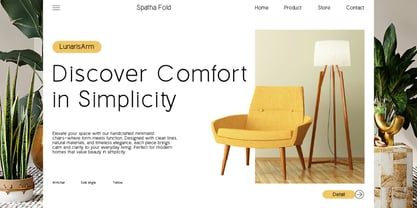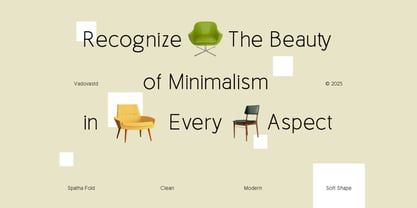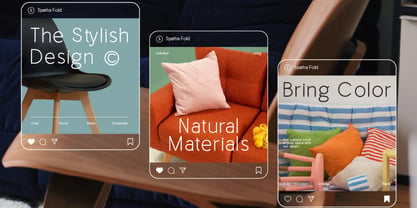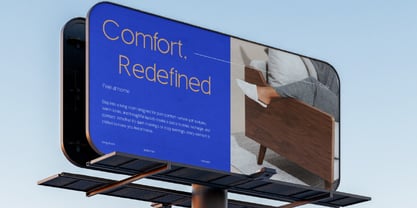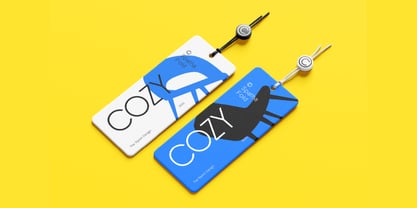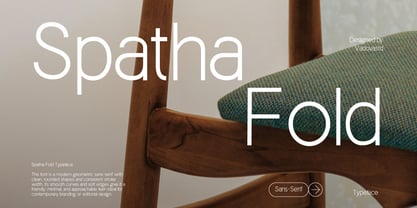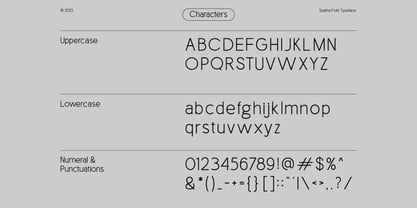
Spatha Fold
Spatha Fold is a clean and contemporary geometric sans-serif typeface designed with smooth curves, open counters, and consistent stroke weight. Its minimalist style and rounded forms make it perfect for branding, editorial layouts, web interfaces, and modern packaging. The font supports multilingual characters and includes full uppercase, lowercase, numerals, and punctuations. Ideal for those seeking simplicity with a refined edge. Spatha Fold is perfect for use in professional branding projects, clean web design interfaces, elegant packaging, tech startup presentations, and minimalist editorial content. Its highly legible structure and soft appearance make it versatile for both screen and print media.